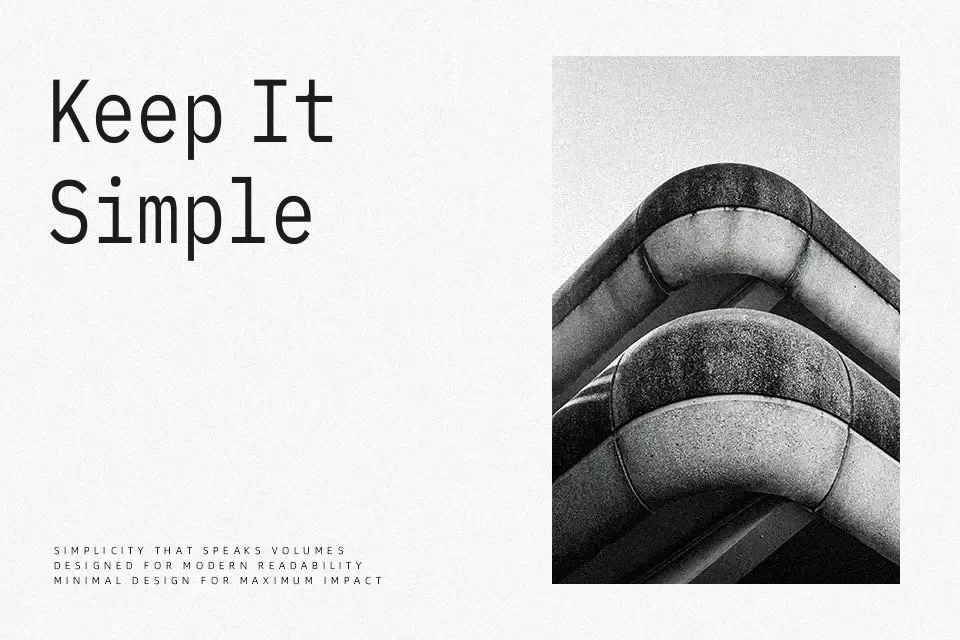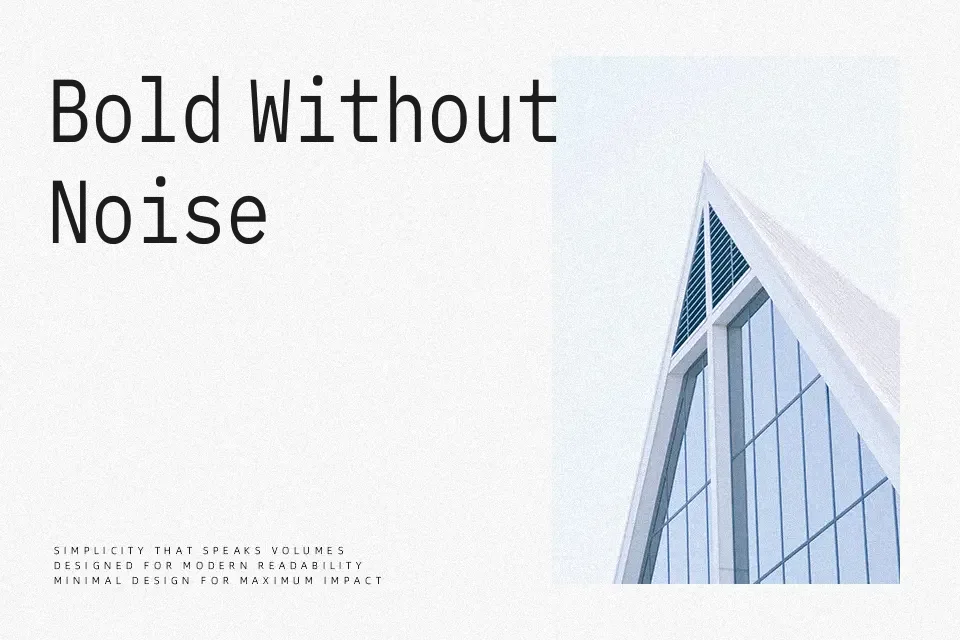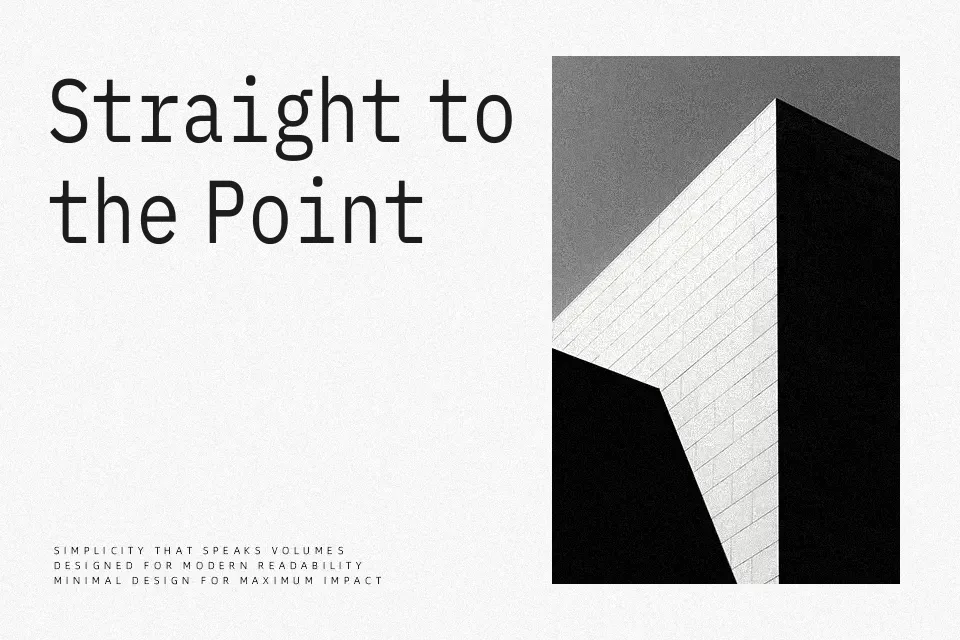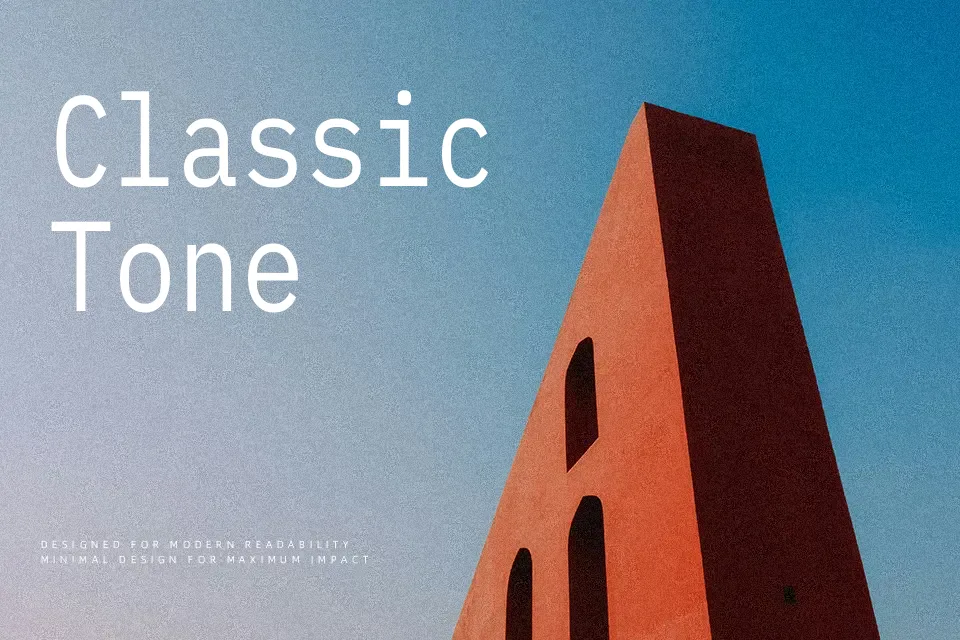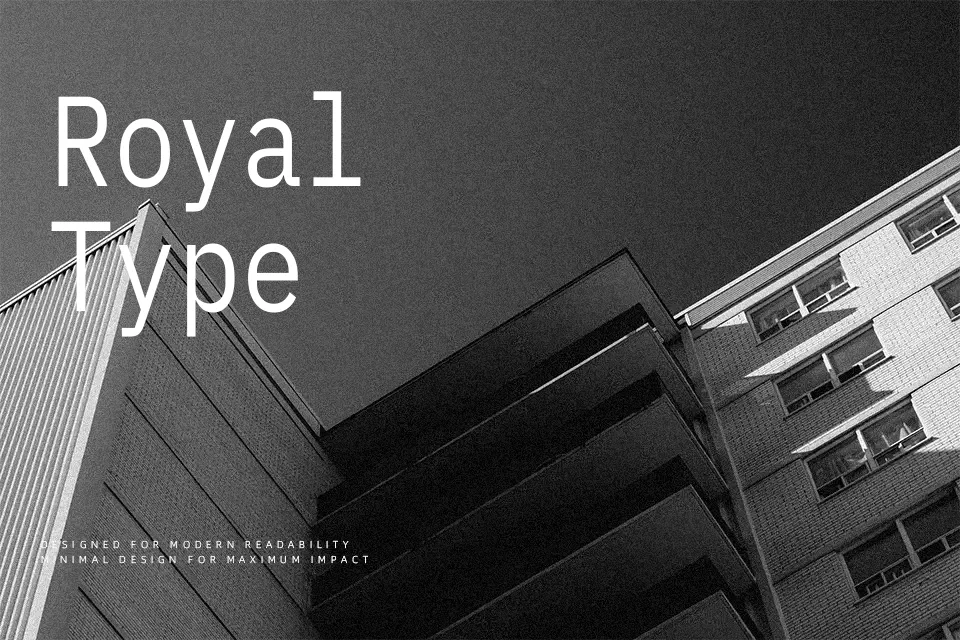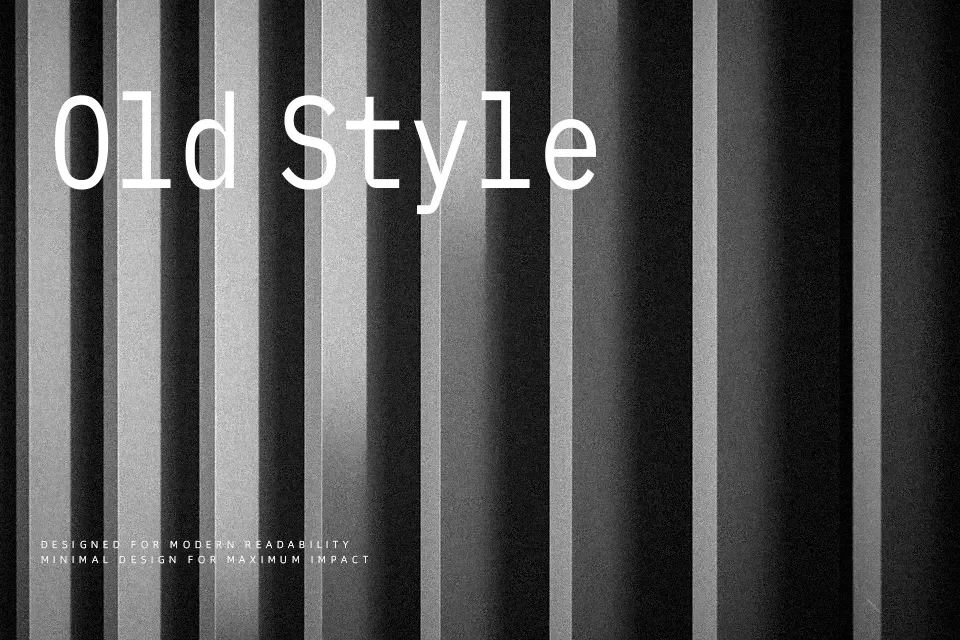
Datatype Font
Datatype behaves like a clean, neutral sans serif at first glance, but its real character appears when you type structured sequences that it converts into miniature charts. Strokes are relatively even, with straightforward geometry and spacing that keeps numeric data and labels readable at small and medium sizes. Because charts are generated directly from text strings, it works well in reports, product analytics pages, and email summaries where you want lightweight, inline visualizations instead of heavy dashboard embeds. Designers who need expressive display typography should look elsewhere, as the letterforms are functional rather than expressive, closer in spirit to system UI faces than decorative display fonts.
data-heavy dashboards
inline charts in documentation
lightweight report visuals
technical product UI labels
long narrative paragraphs
expressive branding wordmarks
decorative poster design
elegant editorial layouts
Perfect for advertising, editorial, and headline, with a clean and display style.